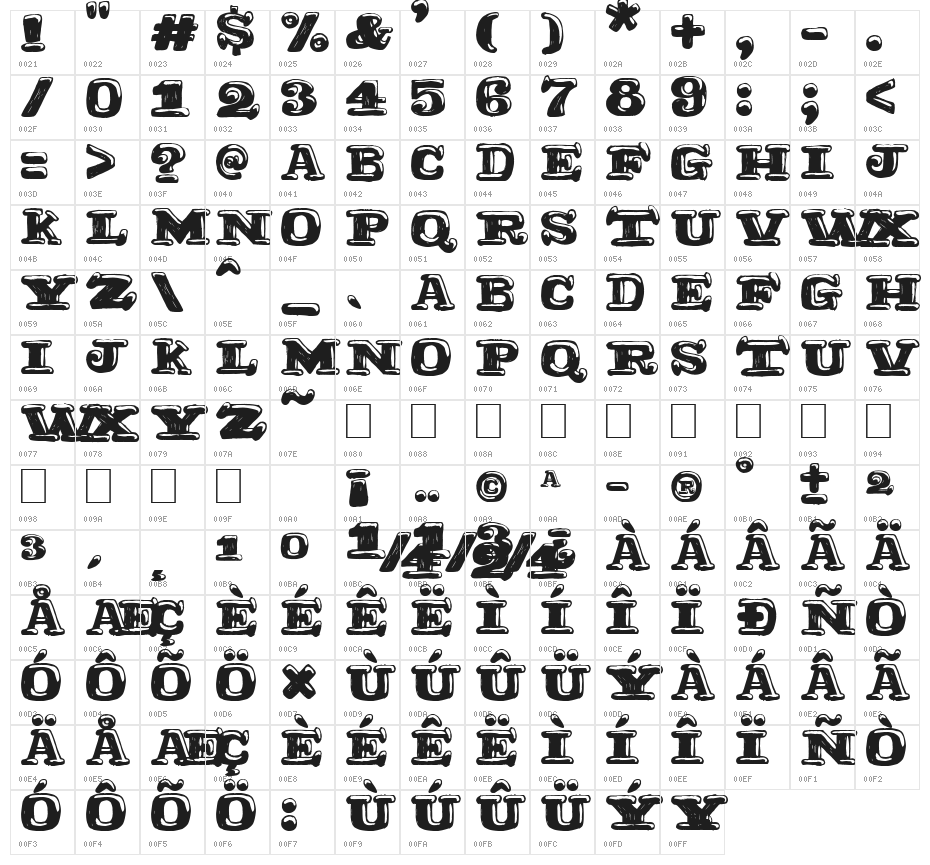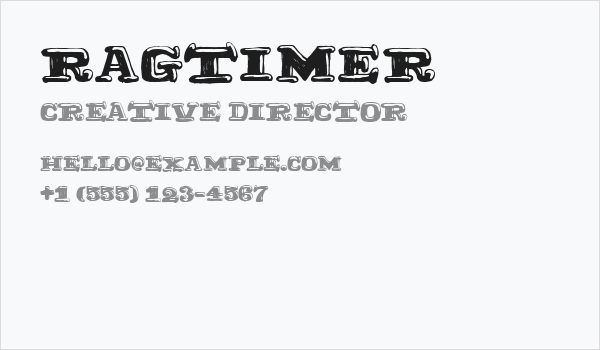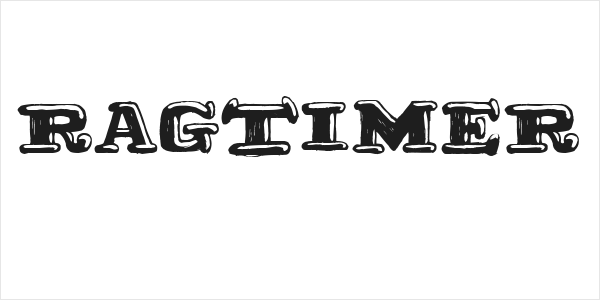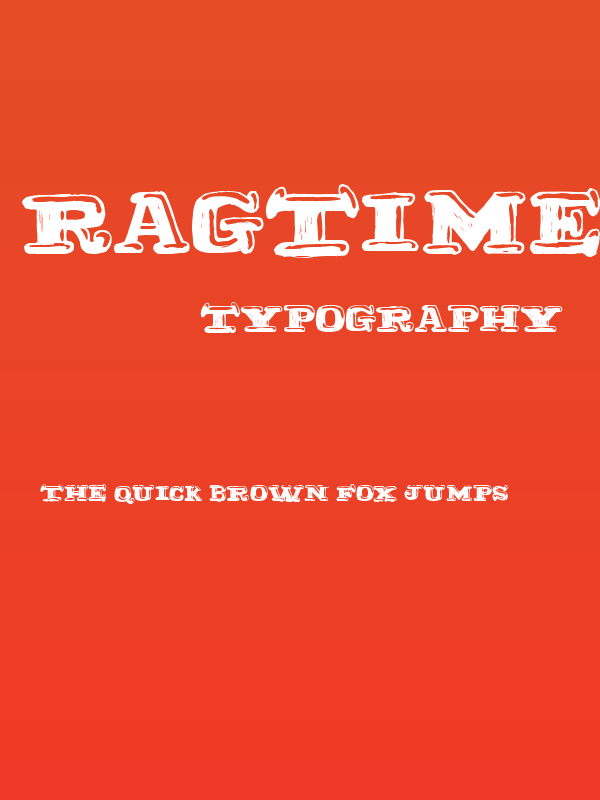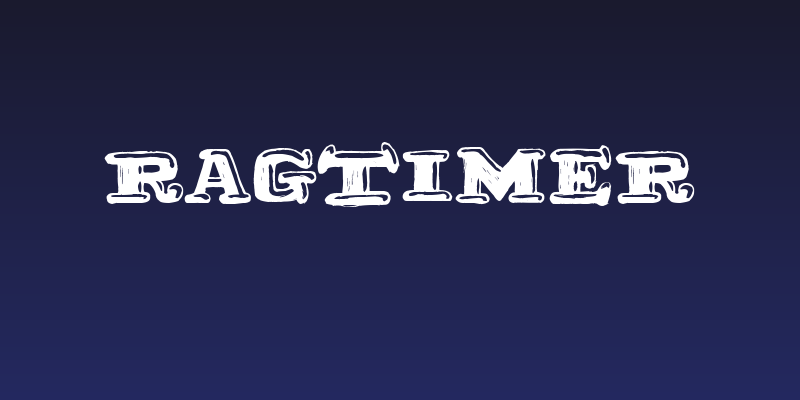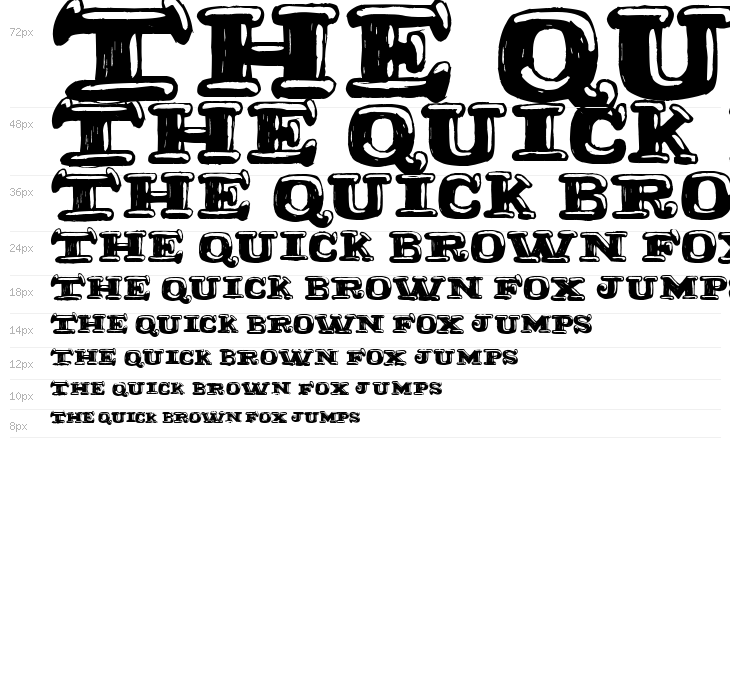
Ragtimer Font
Ragtimer Description
This font features a bold and decorative style with a vintage flair. The characters are heavily stylized, incorporating thick strokes and unique embellishments that give it a distinct, eye-catching appearance. The uppercase and lowercase letters maintain a consistent design, with the uppercase being more pronounced. Numbers and special characters follow the same decorative theme, ensuring a cohesive look across all glyphs. The font's intricate design elements make it suitable for projects that require a strong visual impact.
| Proposed Projects | Ideal for vintage-themed posters, retro branding, eye-catching headlines, and creative design projects that require a strong visual presence. |